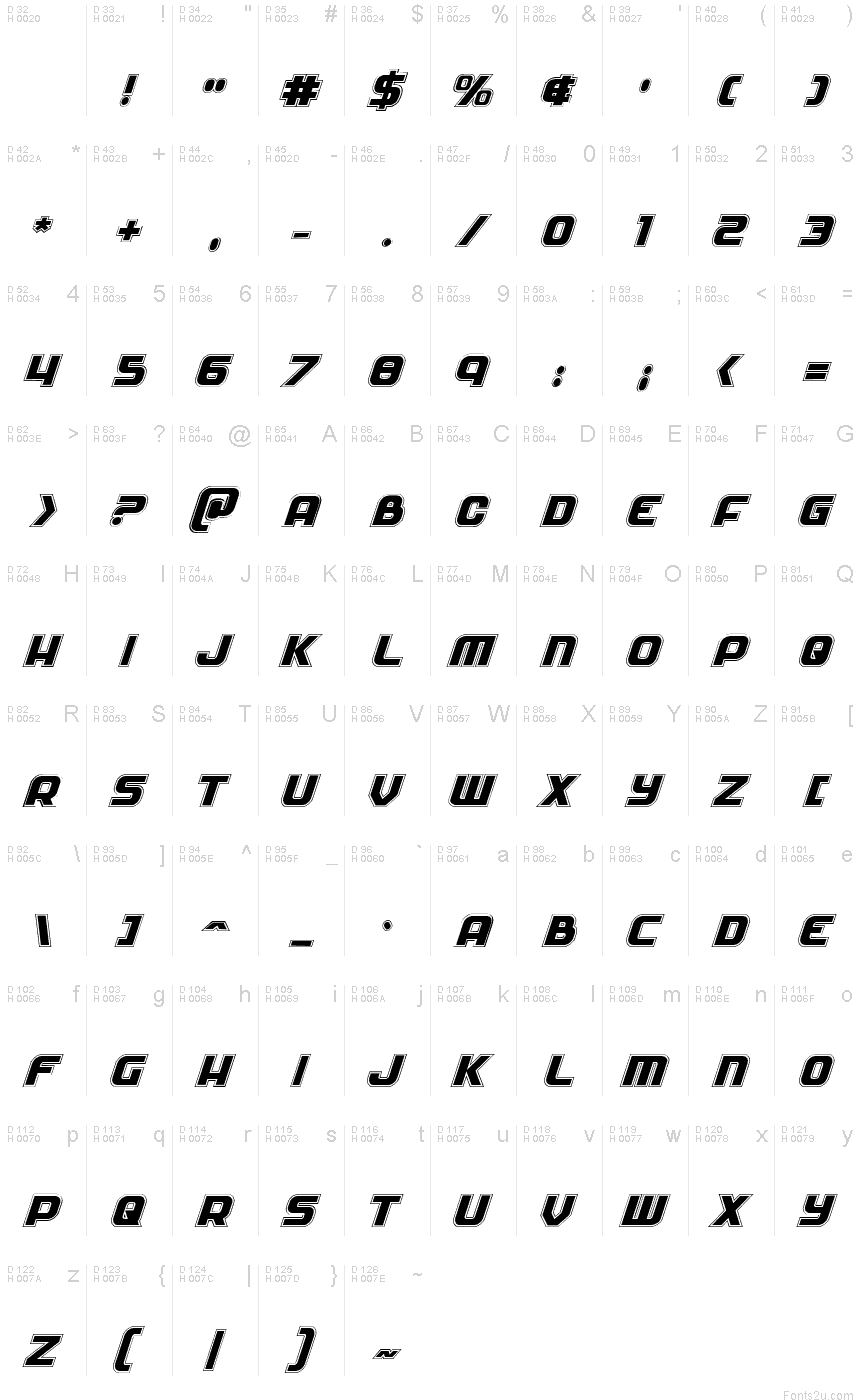
Soldier Academy Italic by Daniel Zadorozny of Iconian Fonts is a free outlined techno display font with broad, forward-leaning letters and a forceful sports aesthetic. Sharply cut corners, squared curves, and close inner outlines give the lettering the look of custom team graphics.
Competitive sports are its clearest territory. Esports branding, racing posters, and athletic merchandise benefit from the fast slant and assertive proportions. It is especially convincing for tournament graphics with a hard-edged, futuristic brief.
Soldier Academy Italic